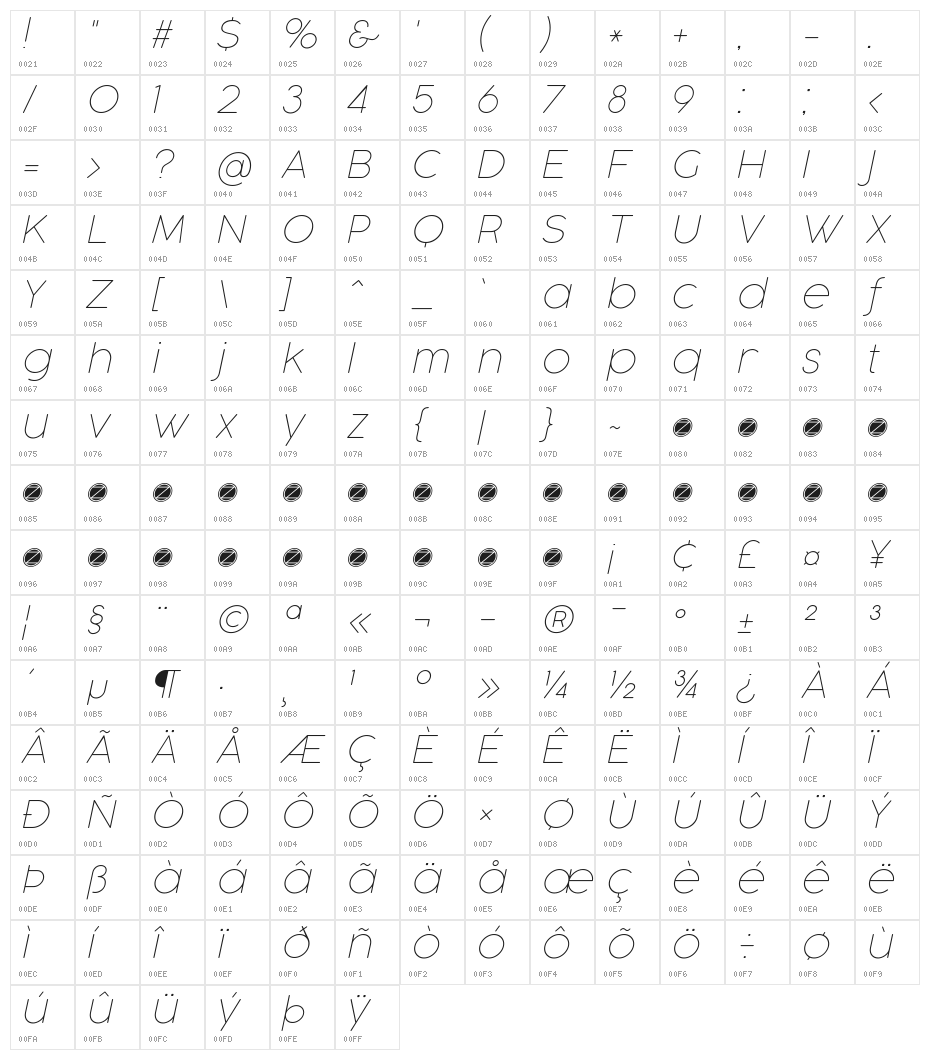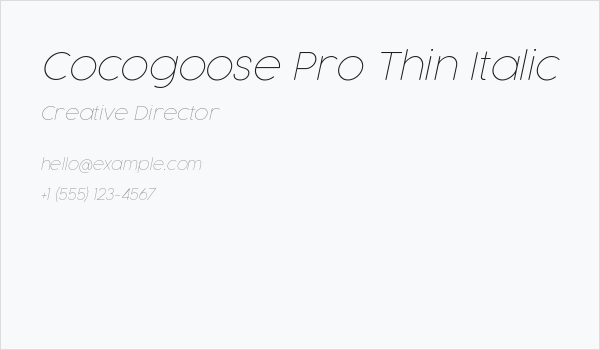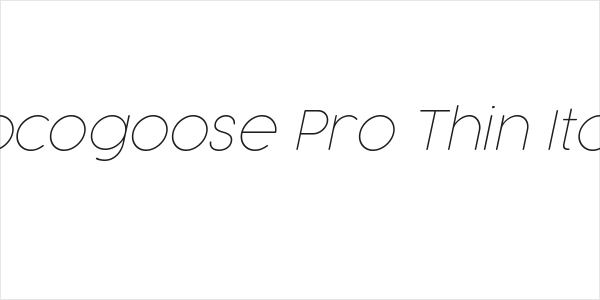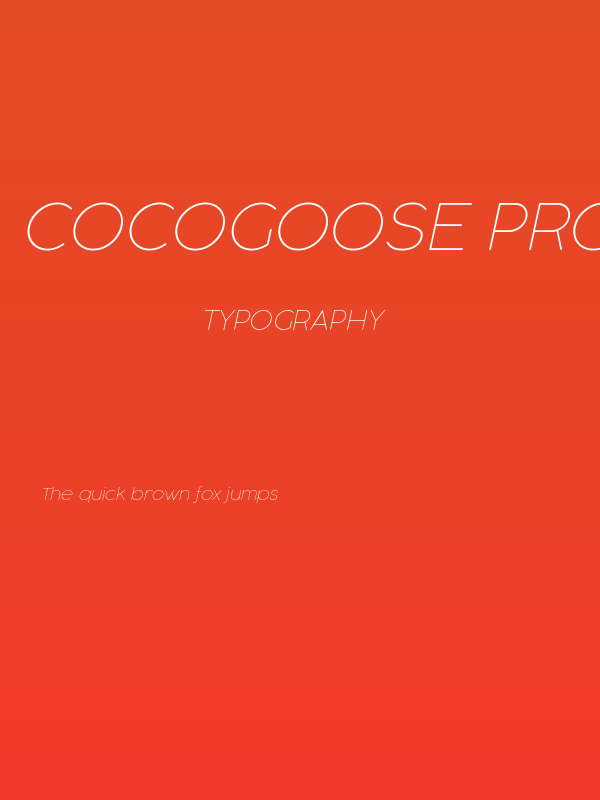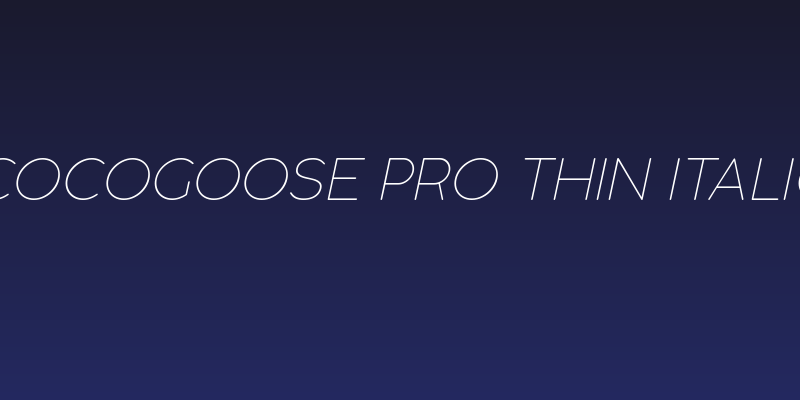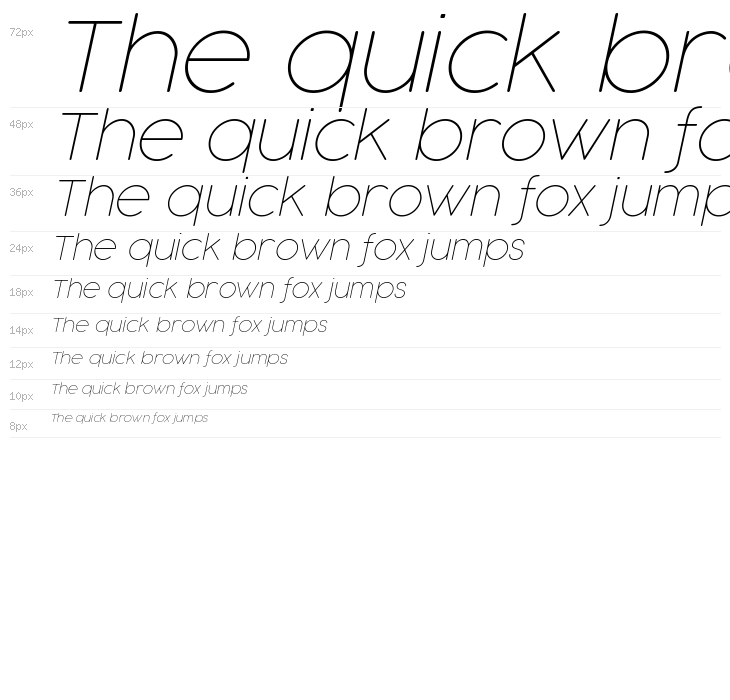
Cocogoose Pro Thin Italic Font
Cocogoose Pro Thin Italic Description
This font features a sleek, modern design with a thin, elegant appearance. The characters are slightly slanted, giving it an italicized look that adds a sense of motion and sophistication. The clean lines and minimalistic style make it suitable for contemporary designs. The uppercase and lowercase letters maintain a consistent height, contributing to a harmonious and balanced aesthetic. The numerals and special characters are designed with the same thin strokes, ensuring uniformity across all elements.
| Proposed Projects | Ideal for fashion magazines, luxury branding, modern websites, and minimalist design projects. |